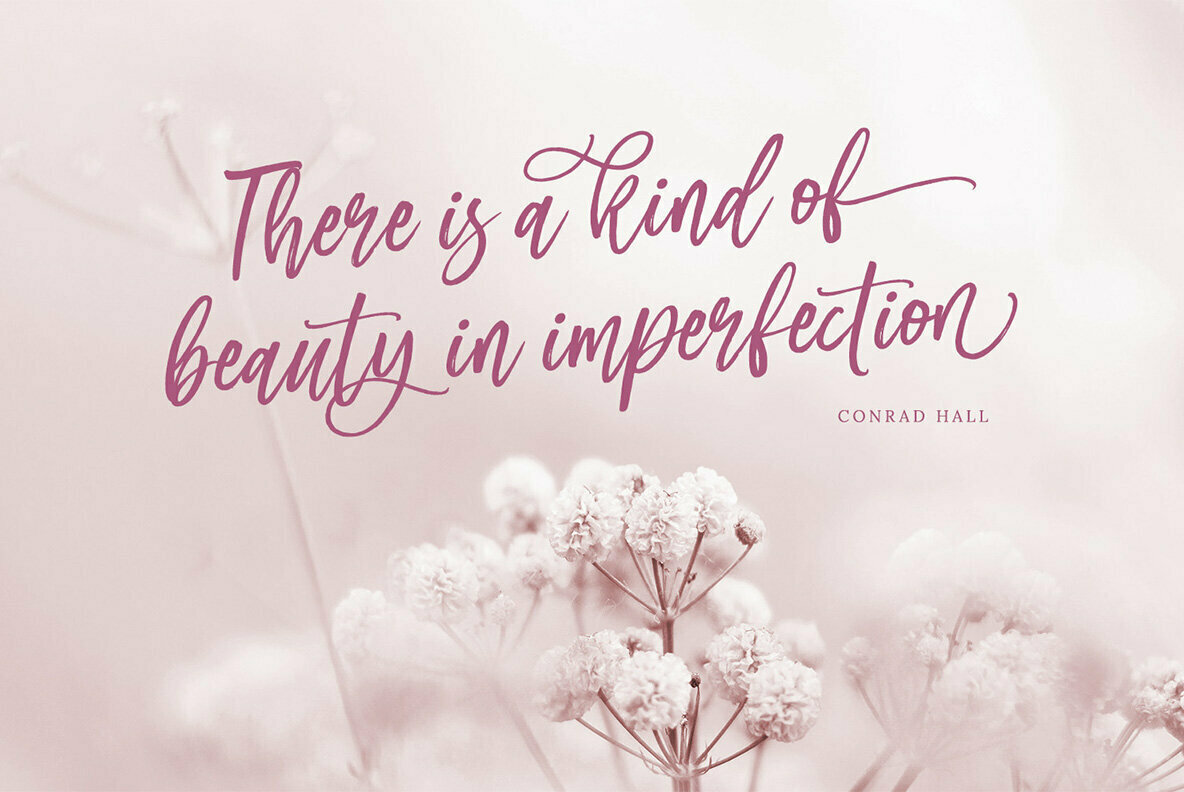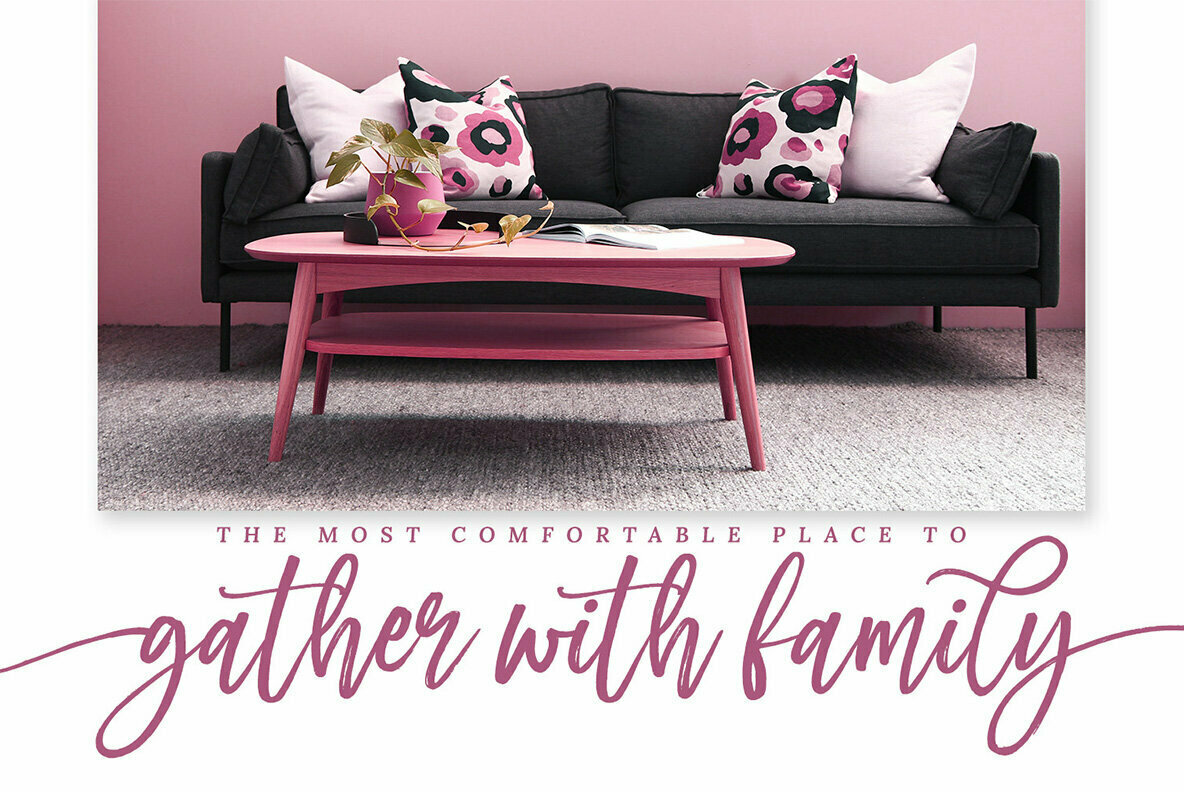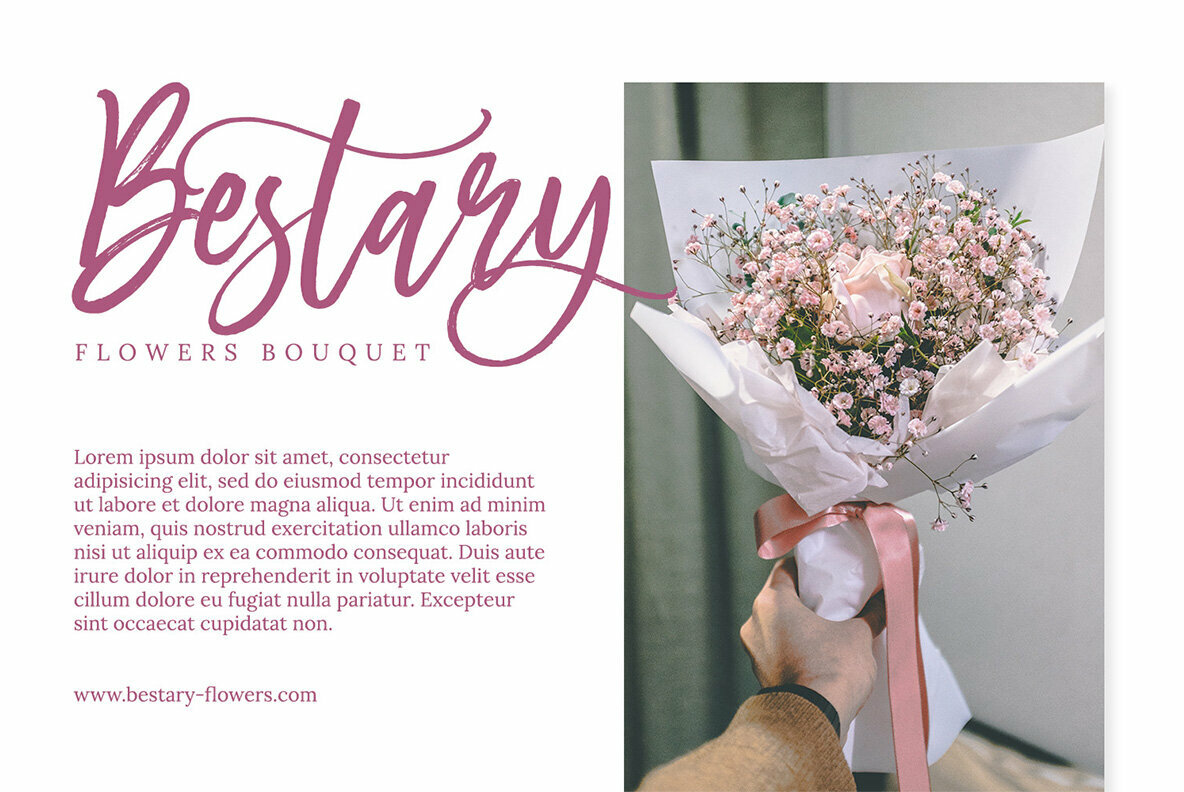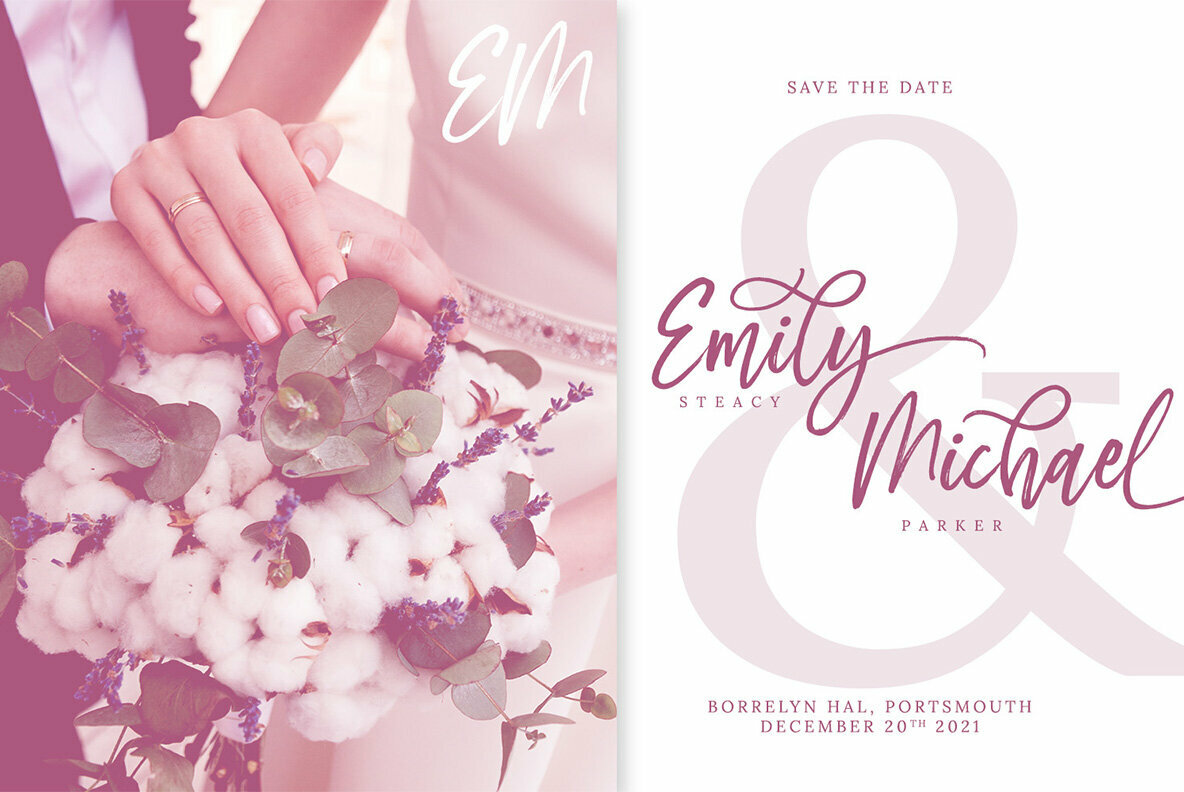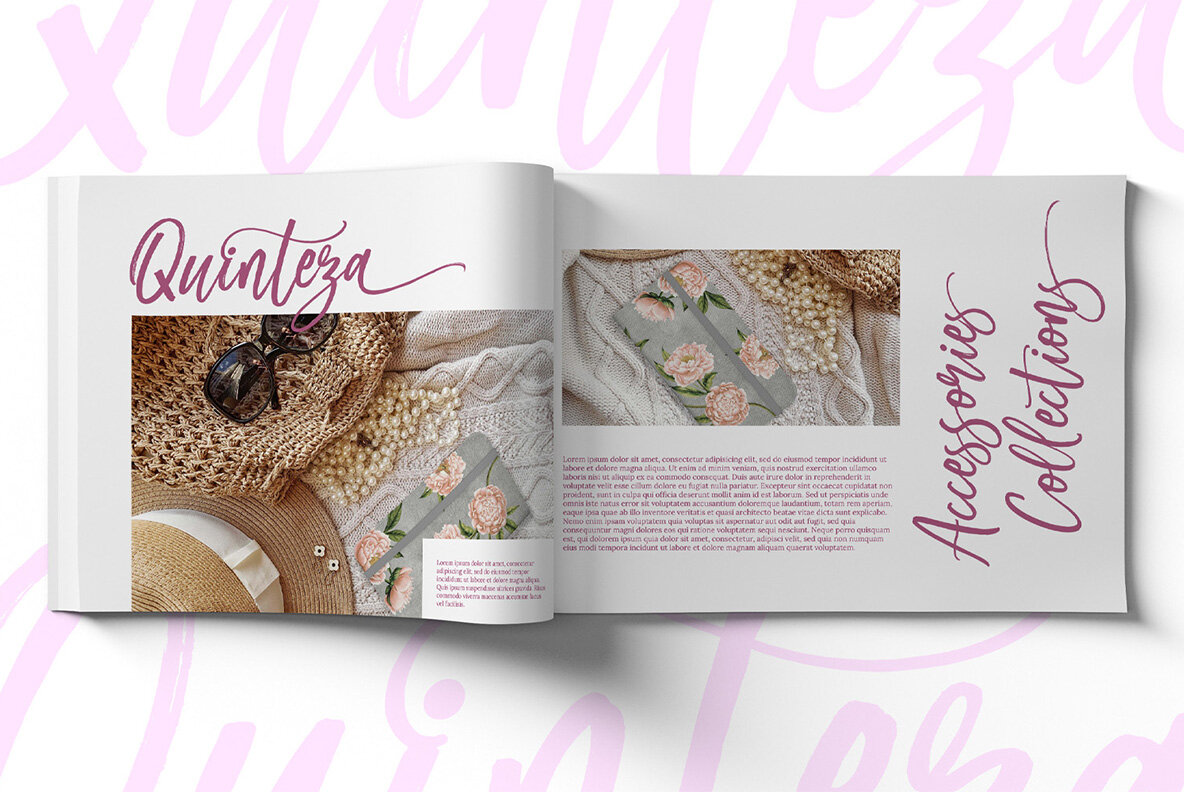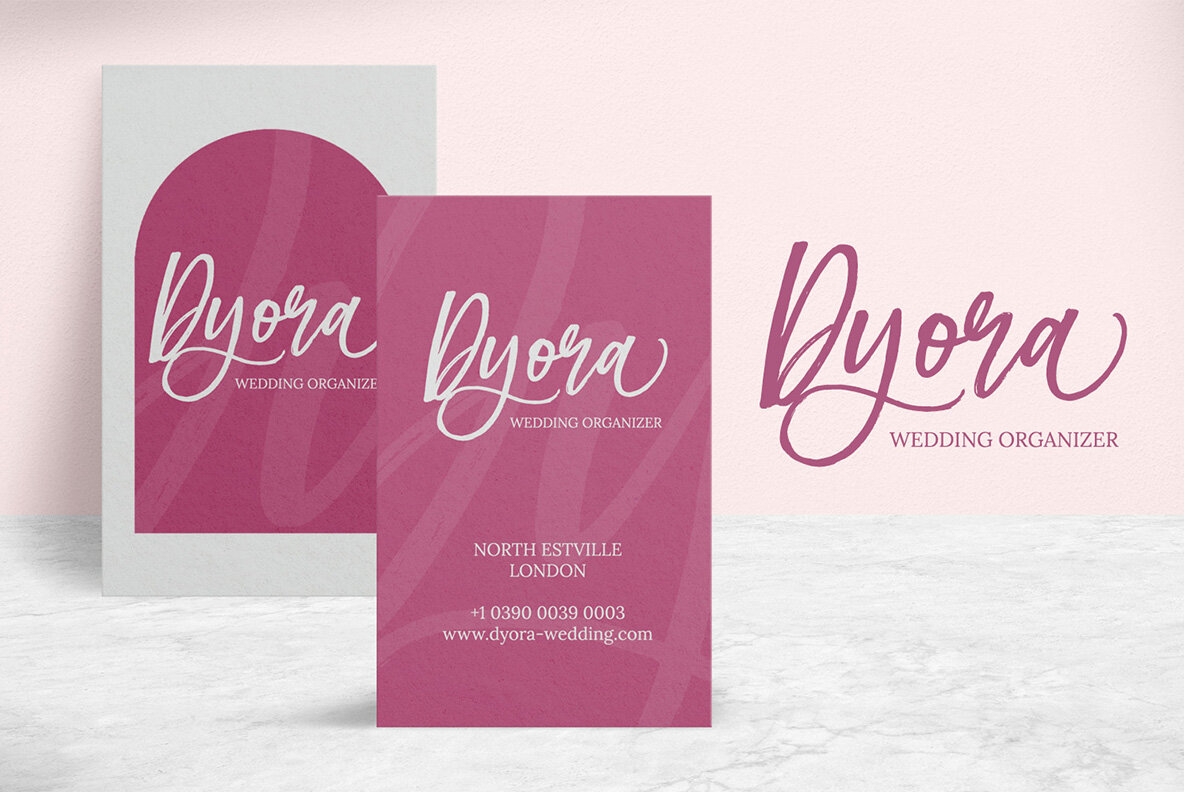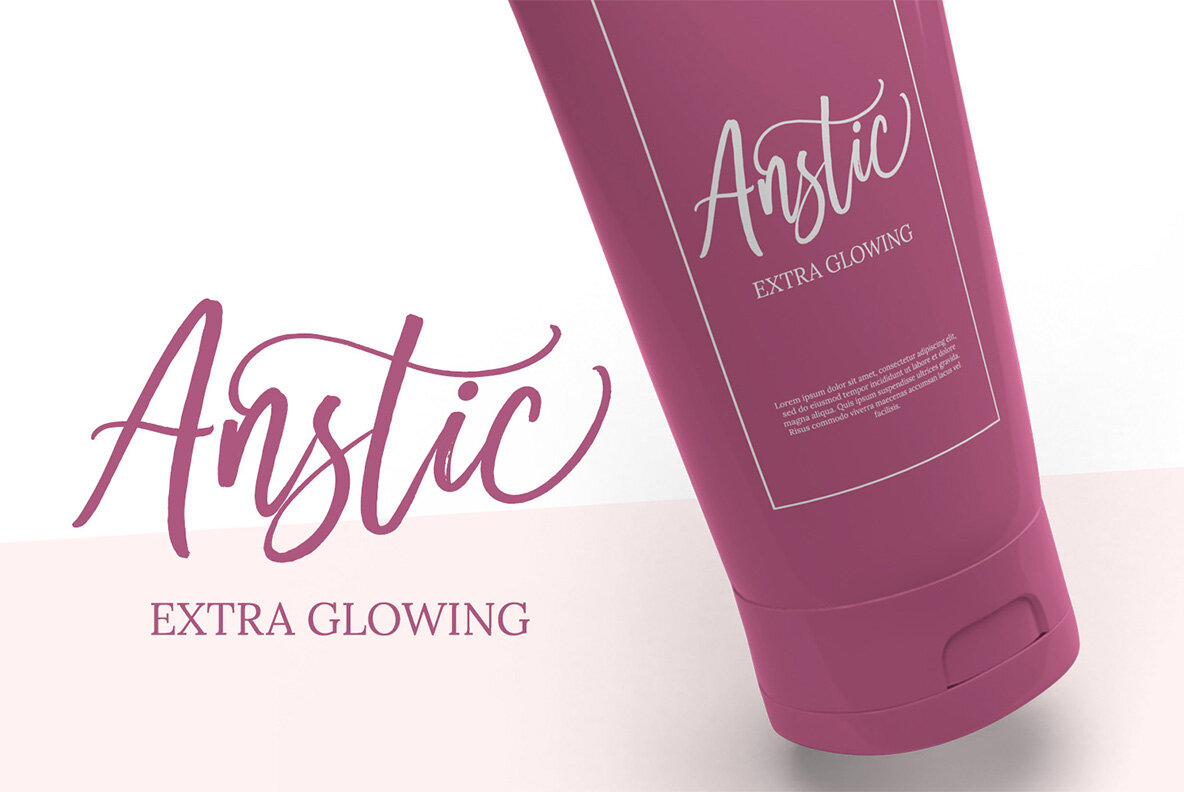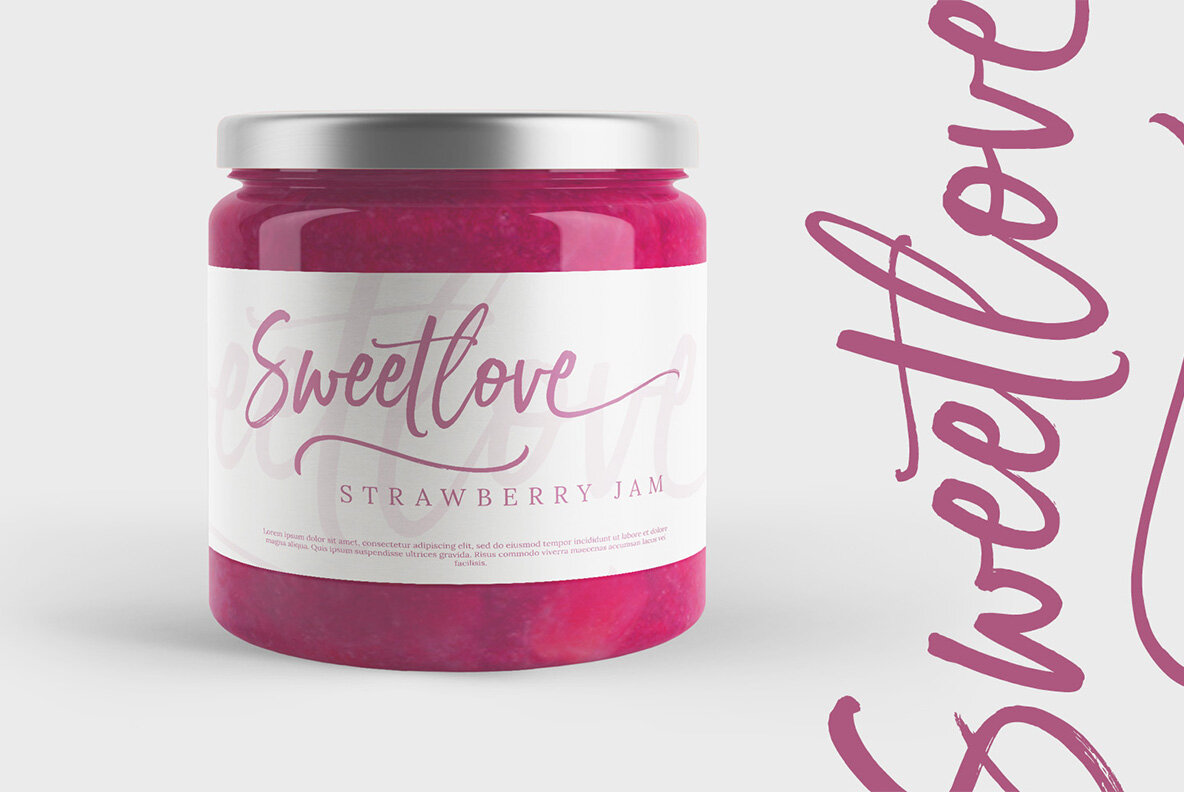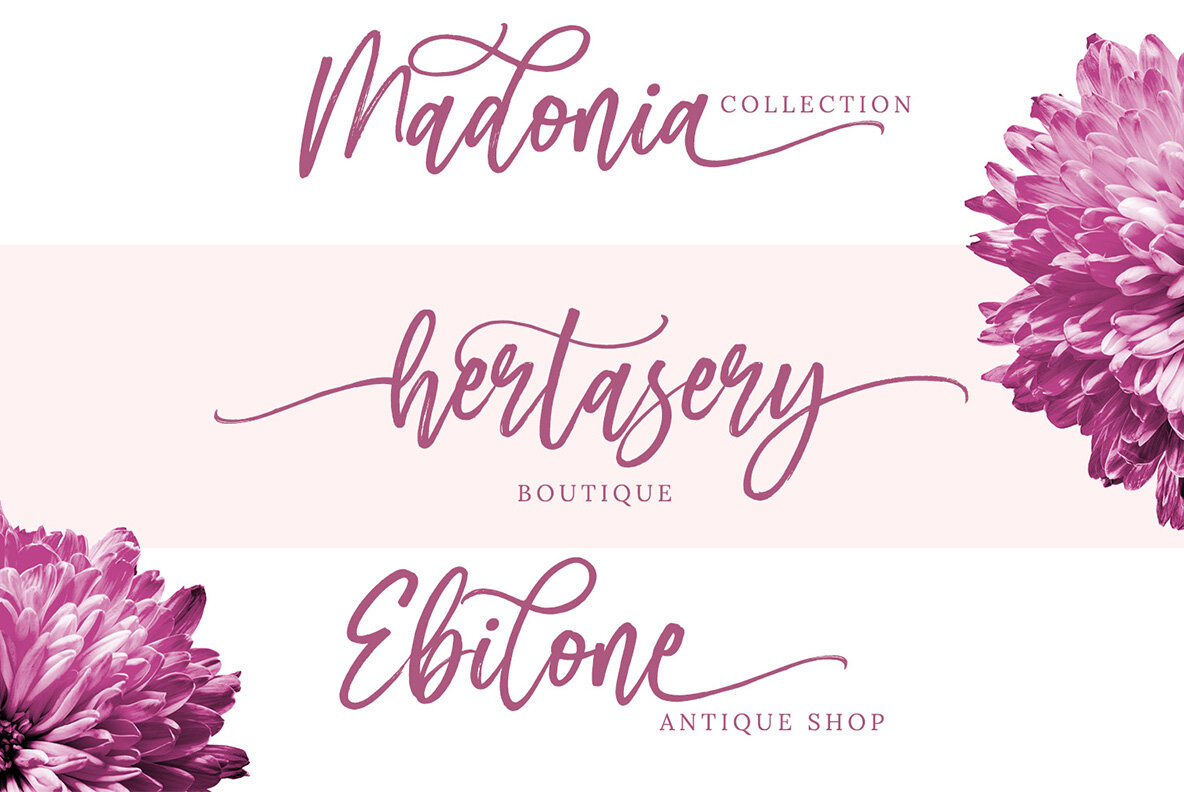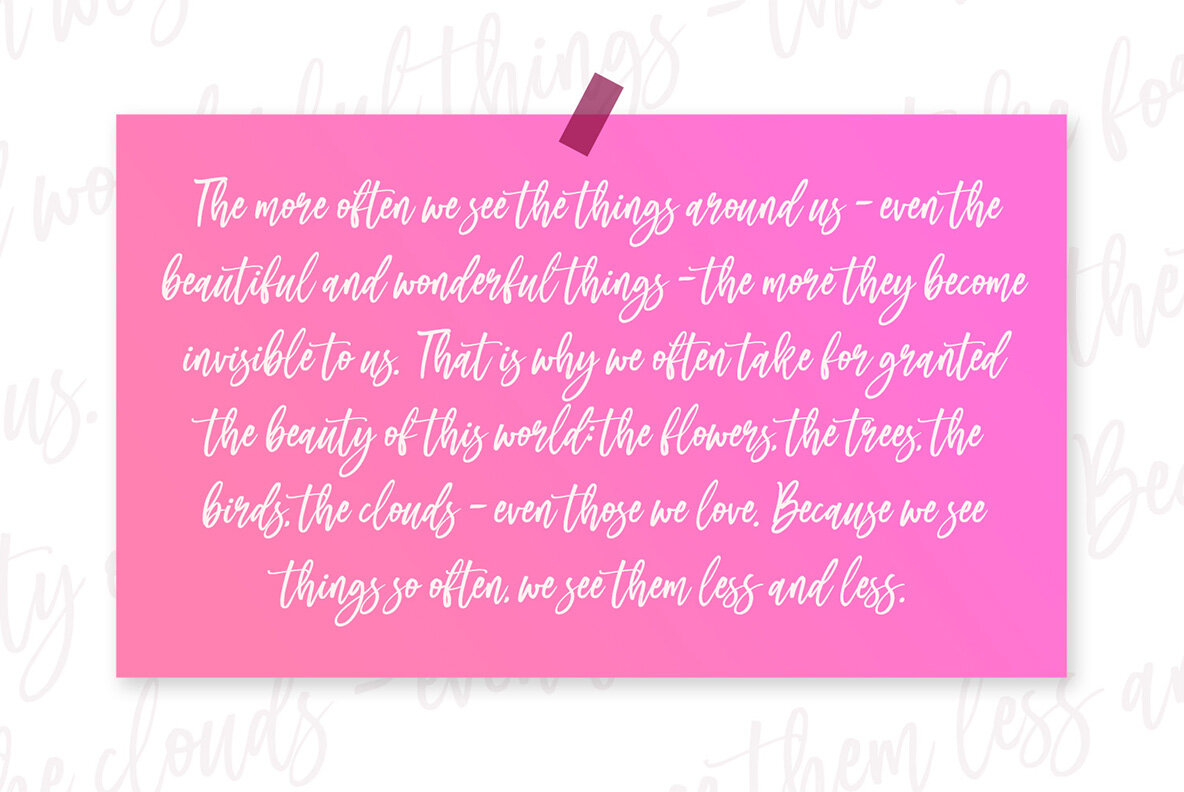
Steamy Miracles Font
Steamy Miracles
Steamy Miracle captures the essence of modern sophistication through its meticulously crafted handwritten style. Each swash and curve harmoniously blend to bring forth a sense of luxury and clarity, making it ideal for projects that demand attention and elegance.Steamy Miracle: Handwritten Elegance for Modern Design
Envelop your designs, presentations, and website illustrations with a touch of warmth and charm through Steamy Miracle's unique strokes. Its versatility and style make it a notable choice for those looking to elevate their creative endeavors.Font Features